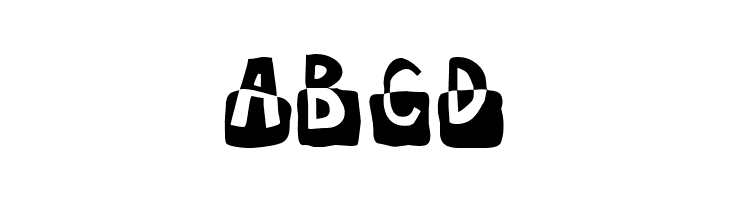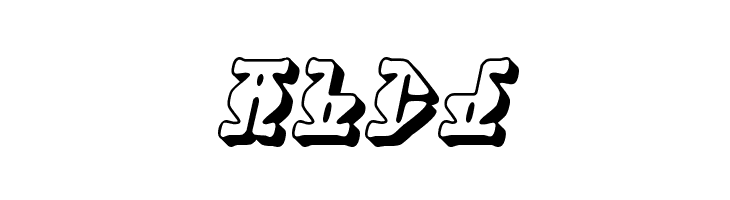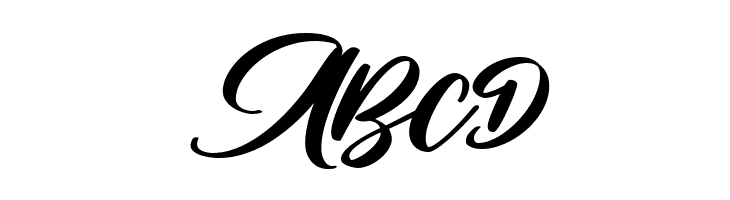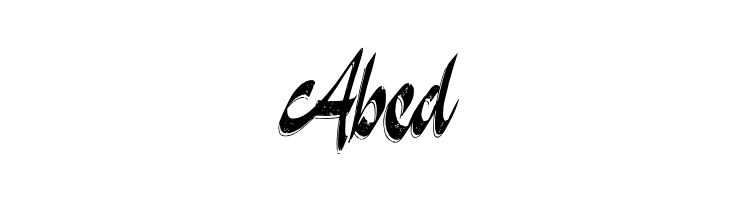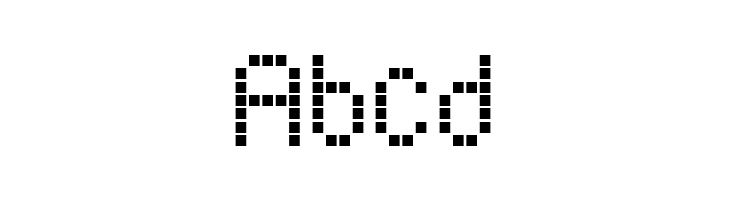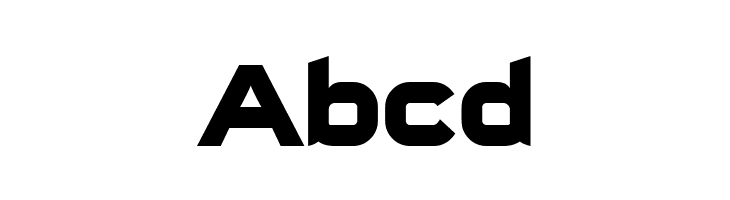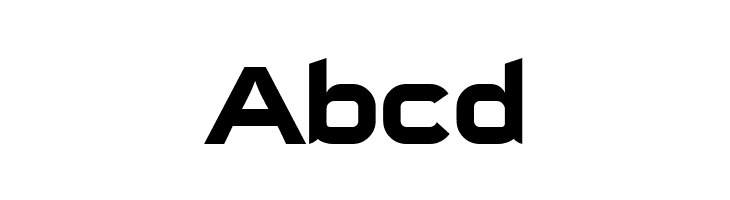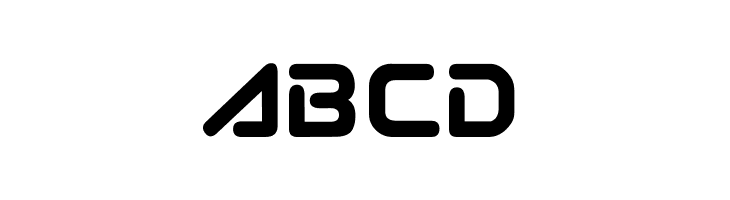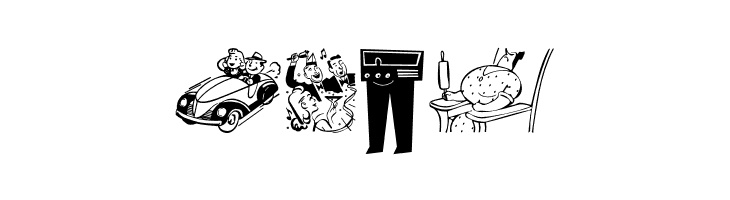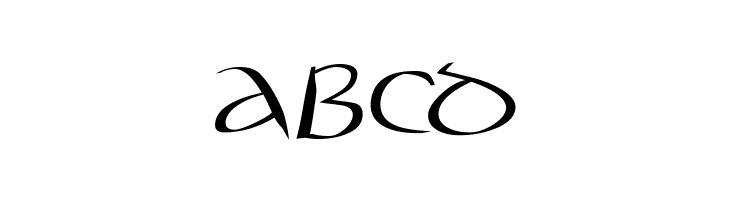
A bold, rugged font with a hand-drawn, graffiti-like style.
A lively, expressive handwritten font with fluid and dynamic strokes.
A bold, Art Deco-inspired font with high contrast and geometric shapes.
A bold, Art Deco-inspired font with geometric shapes and a vintage flair.
A bold, geometric font with Art Deco influences and high contrast strokes.
A bold, geometric font with Art Deco influences and uniform strokes.
A bold, expressive script font with high contrast and flowing cursive letterforms.
A distressed, grungy font with a bold, textured appearance.
A dynamic, calligraphic font with sharp, angular strokes and fluid elements.
A graceful, flowing script font with elegant, connected strokes.
A bold, decorative font with intricate, hand-drawn patterns inside each character.
A bold, rounded font with smooth curves and consistent spacing.
A bold, playful font with a cartoonish, hand-drawn style.
A bold, playful font with thick strokes and a dynamic, cartoonish style.
A bold, decorative font with characters partially submerged in black shapes, creating a dynamic and modern look.
A pixelated, digital display-inspired font with a retro tech vibe.
A bold, graffiti-inspired font with dynamic strokes and urban flair.
Cartoonish dingbat font with diverse life-themed illustrations.
A bold, 3D block font with playful figures and shadow effects.
A bold, geometric font with tall, narrow characters and a modern aesthetic.
A playful, bold font with rounded, thick strokes and a hand-drawn feel.
A playful, hand-drawn font with tall, narrow letters and a whimsical style.
A playful, bold handwritten font with tall, narrow letters and rounded edges.
A graceful script font with elegant loops and high contrast strokes.
A modern, geometric font with bold, consistent strokes and a sleek design.
A bold, modern script font with dynamic slanted letters and strong visual impact.
A bold, dynamic script font with sweeping strokes and a brush-like texture.
A decorative font with letters paired with a woman's silhouette.